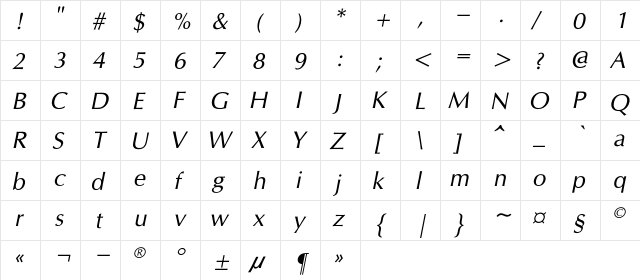
CG-OmegaC Italic
Design Context for CG-OmegaC Typeface
CG-OmegaC offers clean, dependable letterforms without strong stylistic allegiance, making it a practical choice for designers who need flexibility. The dynamic lean of this cut emphasises speed and emphasis in any layout.
Pro Tip: Try CG-OmegaC for annotation and caption copy alongside an upright companion — the contrast in angle creates a dynamic but ordered typographic system.